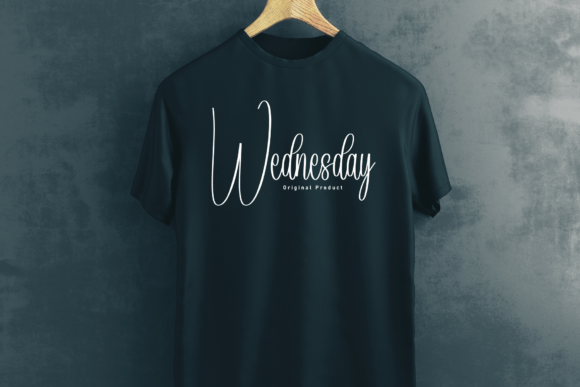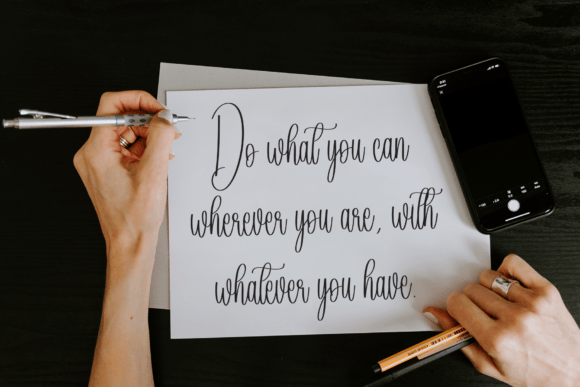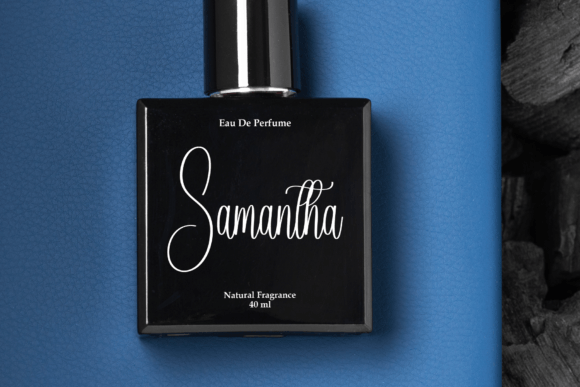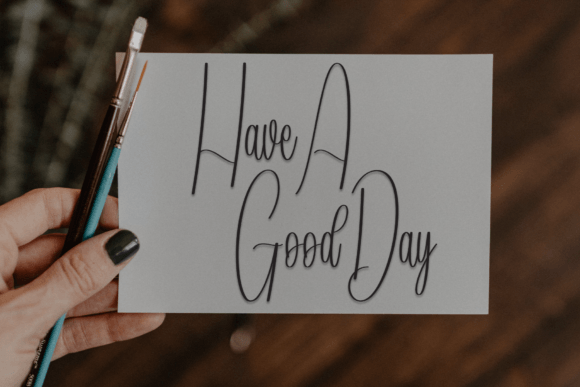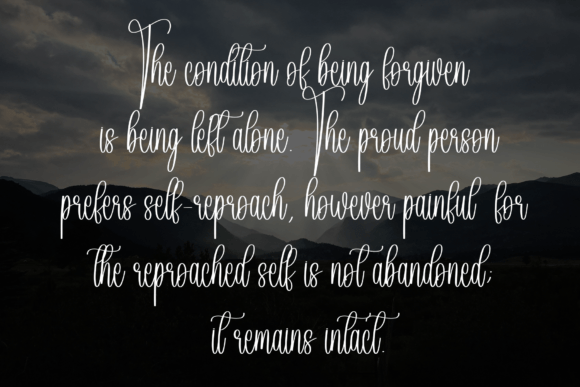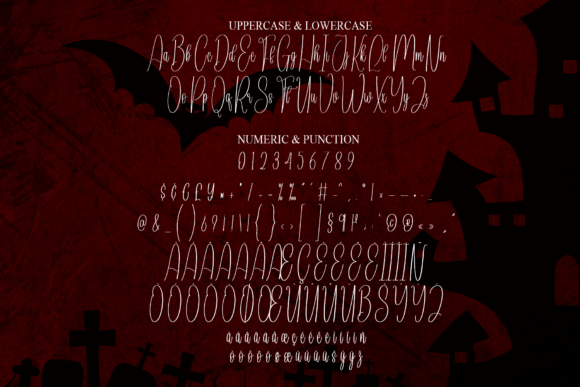
Fallen Devil Font: A Delightful Handwritten Font for Your Creative Projects
Are you looking for a font that can add a touch of whimsy and playfulness to your designs? Look no further than the Fallen Devil Font, a charming and authentic handwritten font that is perfect for creating joyful and memorable works of art. In this article, we’ll introduce you to the Fallen Devil Font and explore its features, benefits, and uses.
What is Fallen Devil Font?
Fallen Devil Font is a delightful and amicable handwritten font that is characterized by its charming authenticity. This heartwarming font provides a playful essence that embodies a joyous atmosphere, making it perfect for a wide range of creative projects. Whether you’re designing wedding invitations, heartfelt cards, or any other type of project that requires a personal touch, Fallen Devil Font is the perfect choice.
Key Features of Fallen Devil Font
Fallen Devil Font has several key features that make it stand out from other fonts. Some of its notable features include:
- Charming Authenticity: Fallen Devil Font has a unique and authentic handwritten feel that adds a touch of personality to any project.
- Playful Essence: This font has a playful and joyful essence that embodies a happy and carefree atmosphere.
- Personal Warmth: Fallen Devil Font adds an element of personal warmth to any project, making it perfect for creating heartfelt cards and wedding invitations.
- Fun Twist: This font has a fun twist that transforms any creation into a memorable work of art.
Benefits of Using Fallen Devil Font
There are several benefits to using Fallen Devil Font in your creative projects. Some of the benefits include:
- Easy to Read: Fallen Devil Font is easy to read and understand, making it perfect for body text and headings.
- Versatile: This font is versatile and can be used in a wide range of creative projects, from wedding invitations to social media graphics.
- Unique: Fallen Devil Font has a unique and distinctive look that sets it apart from other fonts.
- Time-Saving: Using a pre-made font like Fallen Devil Font can save you time and effort in your design projects.
Uses of Fallen Devil Font
Fallen Devil Font is perfect for a wide range of creative projects, including:
- Wedding Invitations: This font is perfect for creating beautiful and memorable wedding invitations.
- Heartfelt Cards: Fallen Devil Font is ideal for creating heartfelt cards for special occasions.
- Social Media Graphics: This font can be used to create engaging and eye-catching social media graphics.
- Logos and Branding: Fallen Devil Font can be used to create unique and memorable logos and branding materials.
In conclusion, Fallen Devil Font is a delightful and amicable handwritten font that is perfect for creating joyful and memorable works of art. With its charming authenticity, playful essence, and personal warmth, this font is ideal for a wide range of creative projects. Whether you’re a designer, crafter, or DIY enthusiast, Fallen Devil Font is a great addition to your font library.